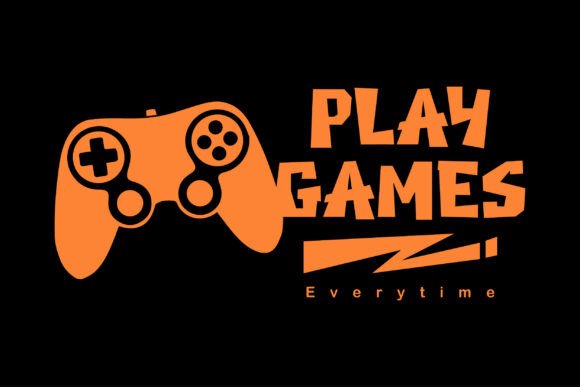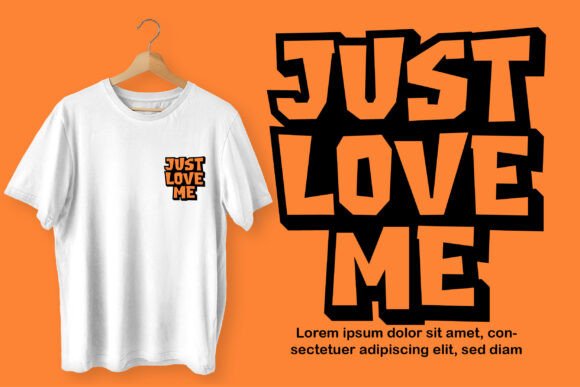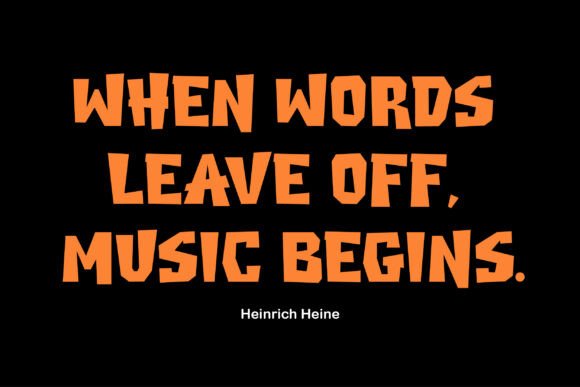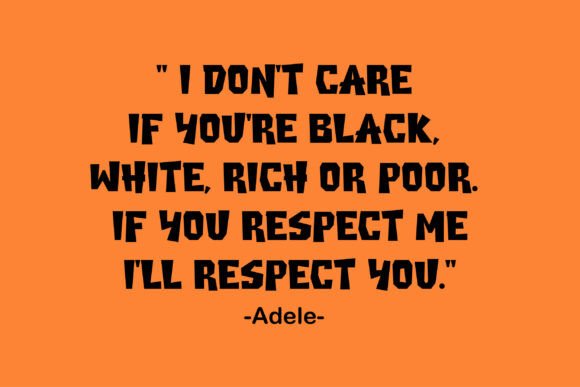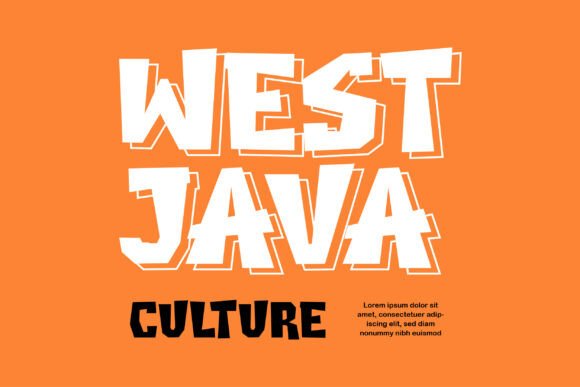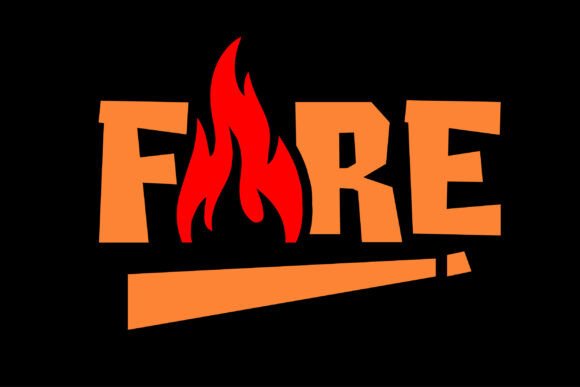
Introducing Brother Font: The Ultimate Display Font for Bold Designs
In the world of typography, fonts play a crucial role in making or breaking a design. A font can elevate your project from ordinary to extraordinary, adding a touch of personality and flair that sets it apart from the rest. If you’re a designer, craft, or simply someone who loves to create, you’re in luck! We’re excited to introduce Brother Font, a confident and daring display font that’s sure to take your designs to the next level.
What is Brother Font?
Brother Font is a display font designed to make a statement. With its unique and exclusive style, this font adds a touch of sophistication and glamour to any design project. Whether you’re working on a gaming logo, social media post, cover title, invitation, greeting card, or any other project, Brother Font is the perfect choice. Its bold and confident personality ensures a distinct presence in every look, making it an essential asset for any artistic endeavor.
Key Features of Brother Font
- Confidence and Boldness: Brother Font exudes confidence and boldness, making it perfect for designs that require a strong and daring personality.
- Exclusive and Extraordinary Style: This font adds a touch of exclusivity and extraordinariness to your designs, setting them apart from the rest.
- Adaptability: Brother Font is versatile and adaptable, making it suitable for both formal and informal scenarios.
- Dynamic Asset: This font is a dynamic asset for any artistic endeavor, providing a strong charm that complements a wide range of design projects.
Use Cases for Brother Font
Brother Font is an incredibly versatile font that can be used in a variety of design projects, including:
- Gaming Logos: Add a bold and confident touch to your gaming logos with Brother Font.
- Social Media Posts: Make your social media posts stand out with this font’s unique and exclusive style.
- Cover Titles: Use Brother Font to create eye-catching cover titles that grab attention.
- Invitations and Greeting Cards: Add a touch of sophistication and glamour to your invitations and greeting cards with this font.
Why Choose Brother Font?
With so many fonts available, why choose Brother Font? Here are just a few reasons:
- Unique Style: Brother Font offers a unique and exclusive style that sets it apart from other fonts.
- Versatility: This font is versatile and adaptable, making it suitable for a wide range of design projects.
- Easy to Use: Brother Font is easy to use and can be easily integrated into your design projects.
- High-Quality: This font is of high quality, ensuring that your designs look professional and polished.
Tips for Using Brother Font
Here are a few tips for using Brother Font:
- Use it Boldly: Brother Font is designed to be used boldly, so don’t be afraid to make it big and bold.
- Experiment with Colors: Try out different colors with Brother Font to add an extra touch of personality to your designs.
- Mix and Match: Experiment with mixing and matching Brother Font with other fonts to create a unique and interesting look.
In conclusion, Brother Font is an exceptional display font that’s confident, bold, and daring. With its unique and exclusive style, this font adds a touch of sophistication and glamour to any design project. Whether you’re a designer, craft, or simply someone who loves to create, Brother Font is an essential asset for any artistic endeavor. So why wait? Download Brother Font today and take your designs to the next level!